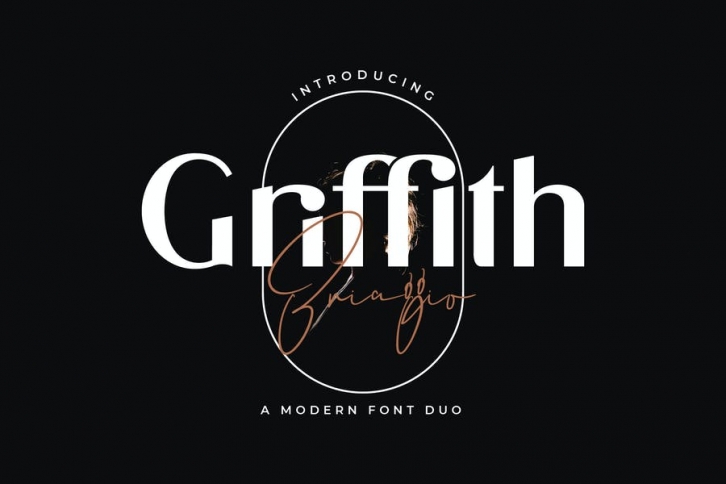
Griffith & Briaggio Signature - Stylish Duo Ligature Typeface Display San Serif inspired by the famous minimalist logo perfect for the purposes of designing templates, brochures, videos, advertising branding, logos and more.